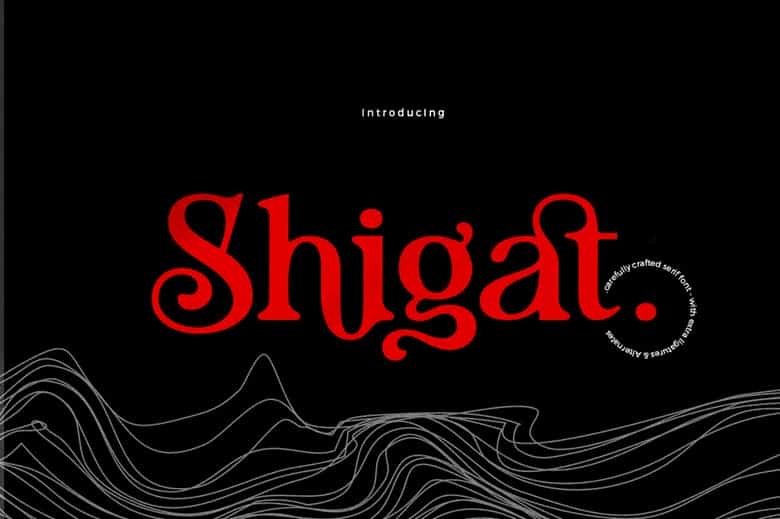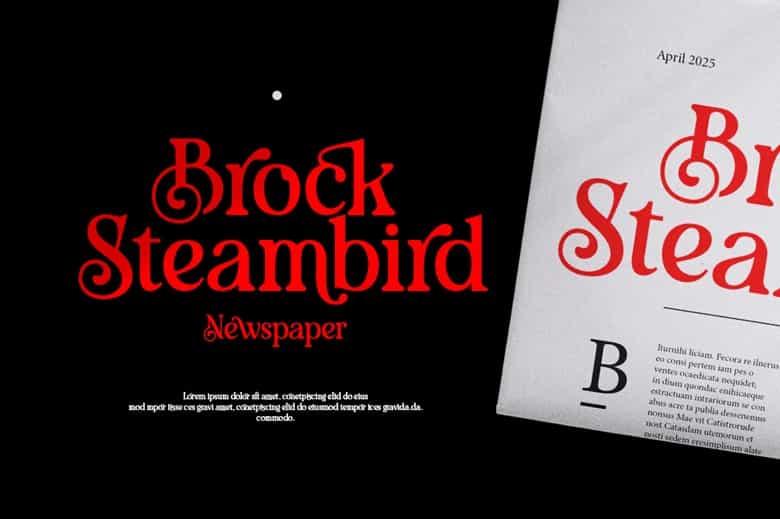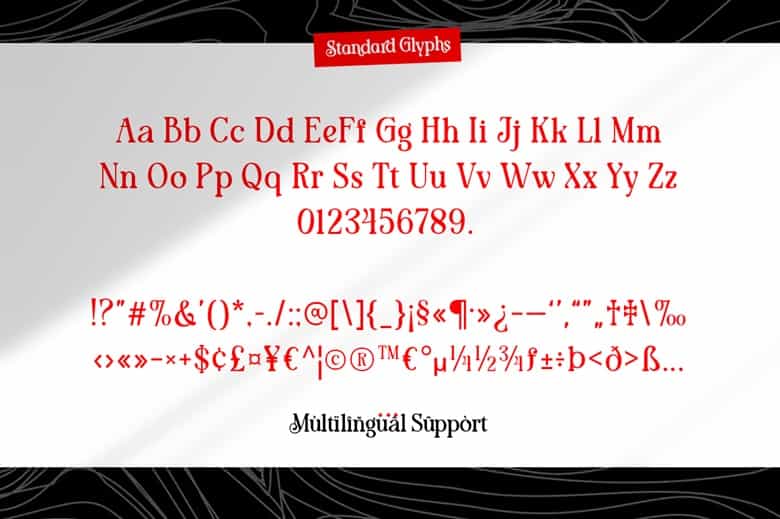
Shigat is a beautiful and modern serif font that combines innovative design ideas to provide professionalism to your text. This font has a certain style with pointed ends on its letters, it is ideal for making any project look classy. The one major aspect that differentiates Shigat from the rest are the numerous ligatures and alternates that it comes with to help make your text look more fluent.